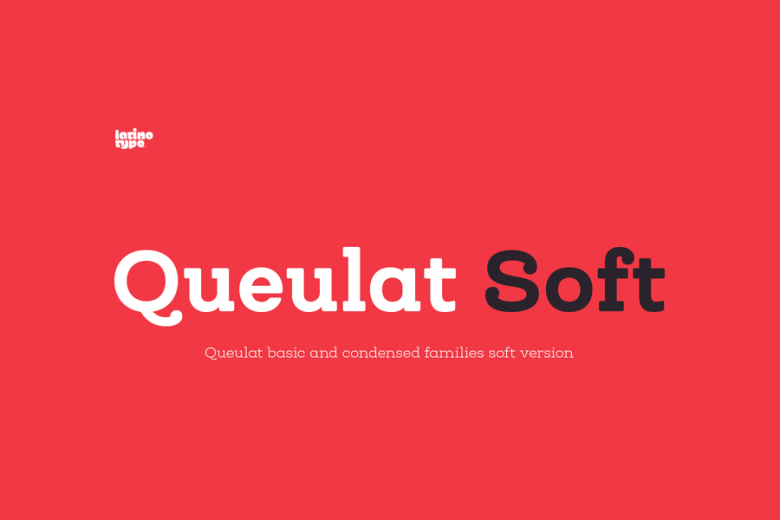
Queulat Soft Font Family
Introducing Queulat Soft Font Family. Queulat Soft designed by Latinotype. The font is the soft version of the Queulat basic and condensed families, but keeping the same features as the original typeface. Queulat Soft is a hybrid font that combines different styles, reflecting charm, freshness and, especially, a strong personality. The font is inspired by Modern and Grotesk styles. The former is shown in some characteristic features such as teardrop terminals, which give the typeface an attractive unique look, making it an ideal choice for logotypes and labelling. The latter, with its rationality, makes Queulat Soft a stable and strong face for headings and subheadings.